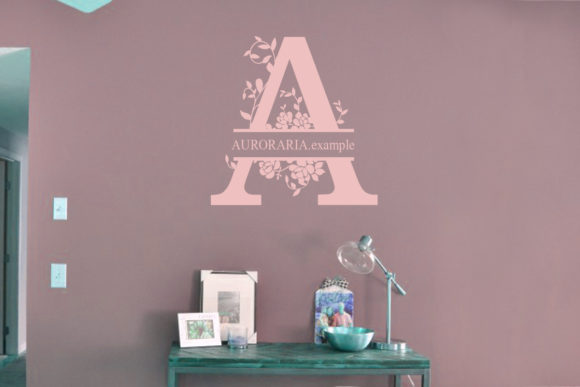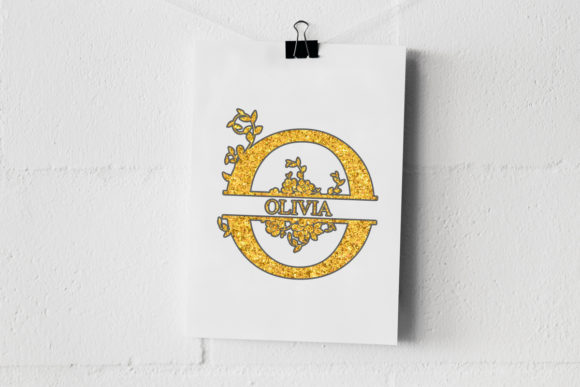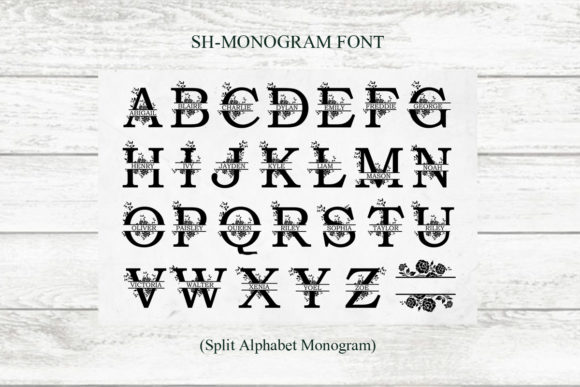
Introduction to SM Monogram Font
As a designer, have you ever been in the midst of a creative project, pouring your heart and soul into every detail, only to feel like something’s missing? The perfect font can make all the difference. And that’s where the enchanting SM Monogram Font comes in – a beautiful decorative font with a floral theme that adds a touch of whimsy and charm to any design project.
Whether you’re working on a wedding invitation, a nursery decoration, or a blog post, the SM Monogram Font is a valuable design resource that can elevate your creative project to the next level. With its high-quality design and transparent background, it’s a versatile tool that can be used in a variety of contexts. And the best part? It’s available for free download, making it an accessible resource for designers of all levels.
Key Features of SM Monogram Font
- Unique monogram design perfect for creative projects and personal branding.
- High-quality font suitable for various design resources, including logos, invitations, and business cards.
Honest Review: SM Monogram Font
As a designer, I’m always on the lookout for high-quality design resources to elevate my creative projects. The SM Monogram Font is one such resource that caught my attention. I decided to give it a try and here’s my honest review.
- ✨ High-quality design: The SM Monogram Font has a clean and sophisticated look that’s perfect for a variety of projects.
- ✨ Transparent background: This feature allows for a seamless design experience, making it ideal for projects that require a clean and minimalist look.
- ⚠️ Limited customization options: While the SM Monogram Font is a great resource, it’s worth noting that it may not offer the level of customization that some designers are looking for.
- ⚠️ May not be suitable for all projects: The font’s style may not be suitable for projects that require a bold or playful look.
Overall, I’m impressed with the SM Monogram Font and would recommend it as a design resource for any creative project that requires a high-quality, sophisticated look. With its transparent background and easy-to-use design, it’s a great addition to any designer’s toolkit.
Common Use Cases for SM Monogram Font
The SM Monogram Font is ideal for creating logos, branding materials, and other design elements that require a high-quality, custom font. Use it in your creative projects to add a touch of elegance and sophistication. The font is also suitable for use in business cards, letterheads, and other marketing materials where a professional look is essential.